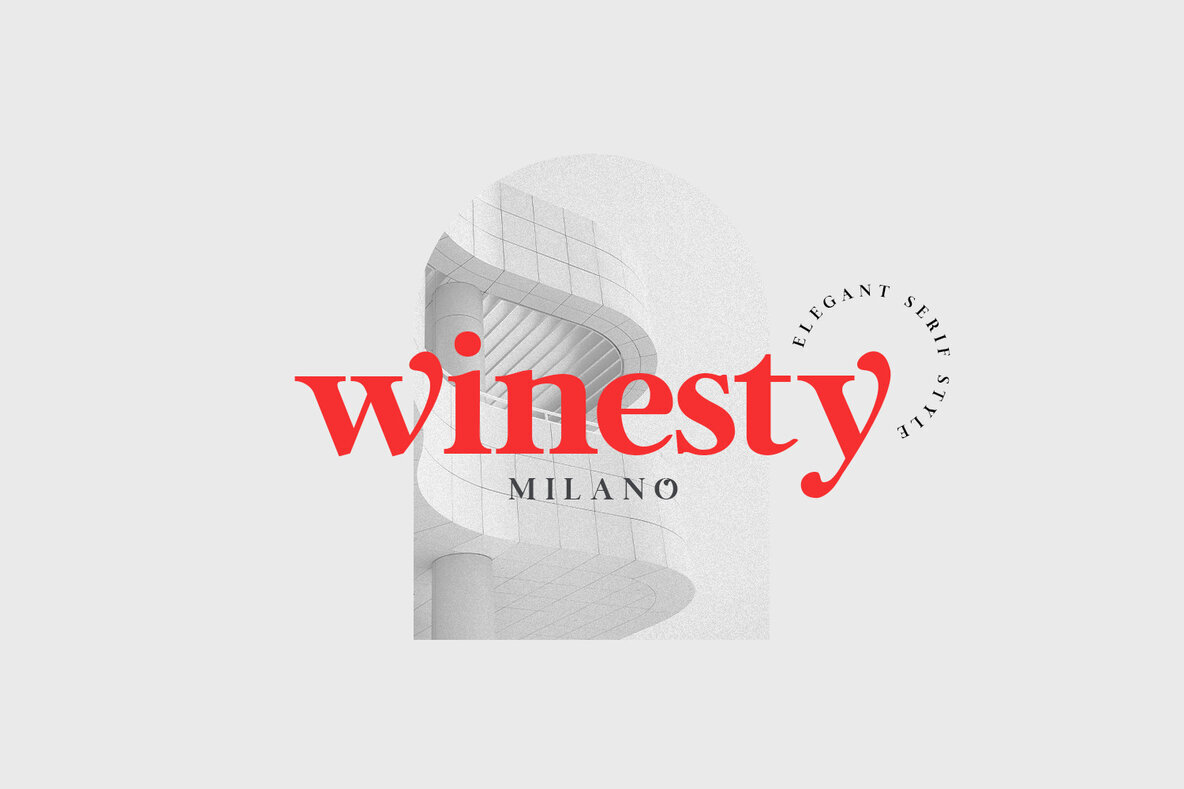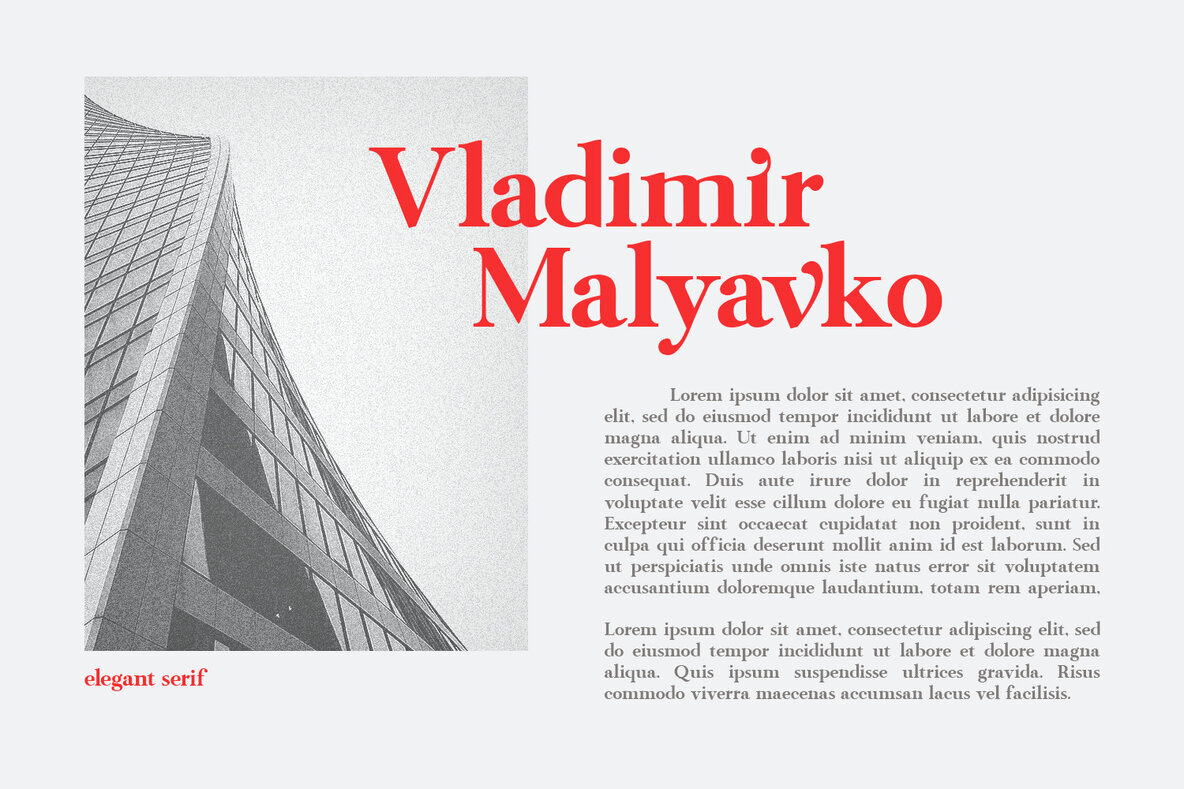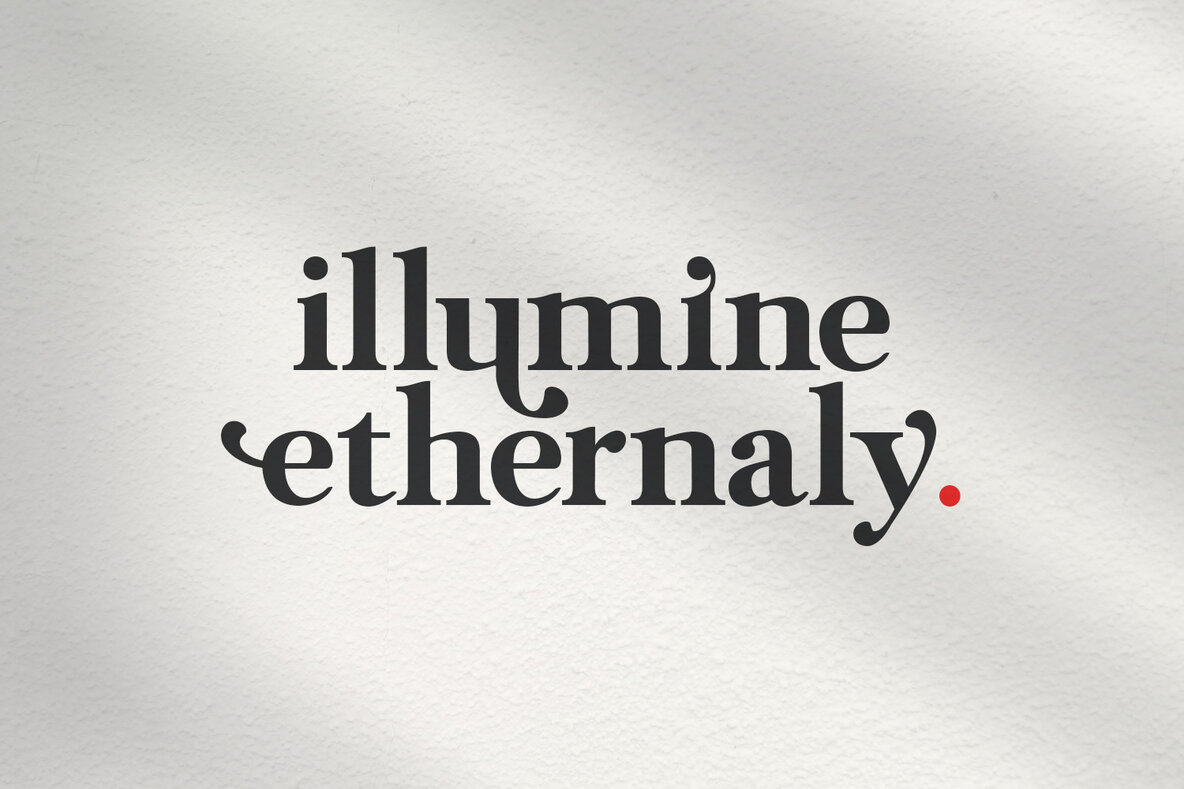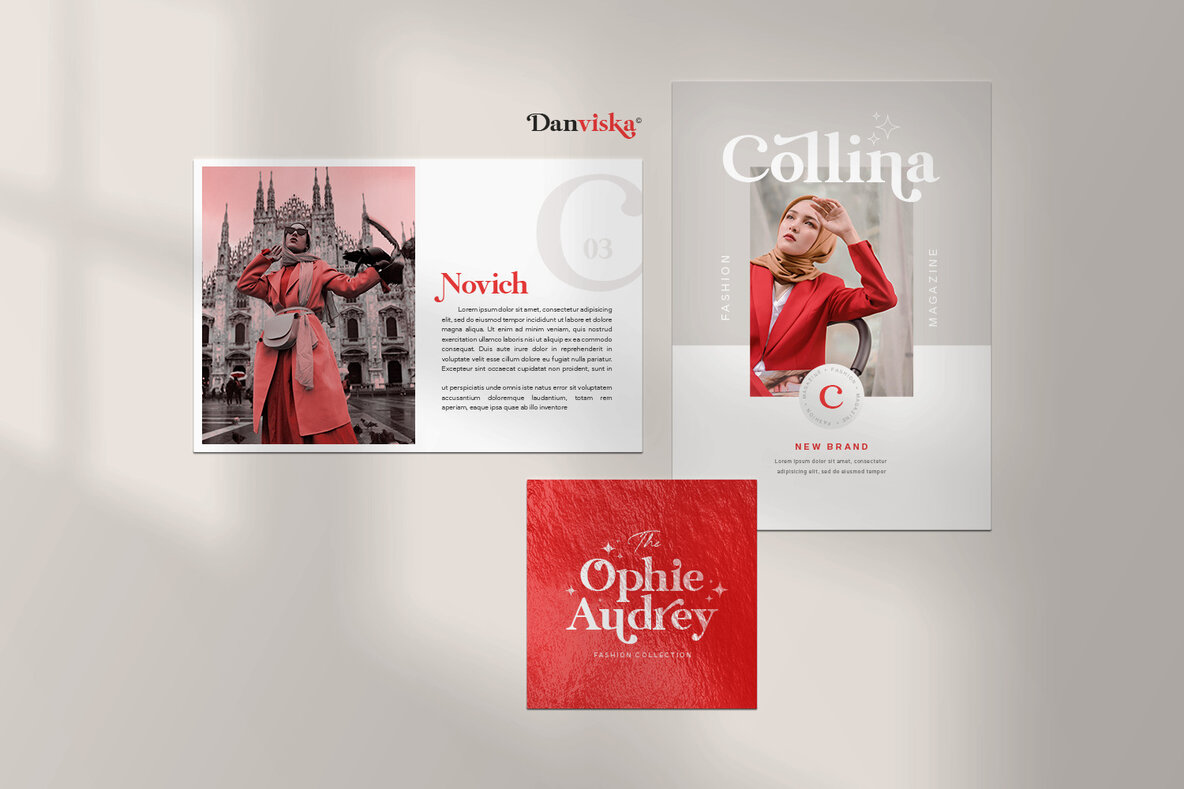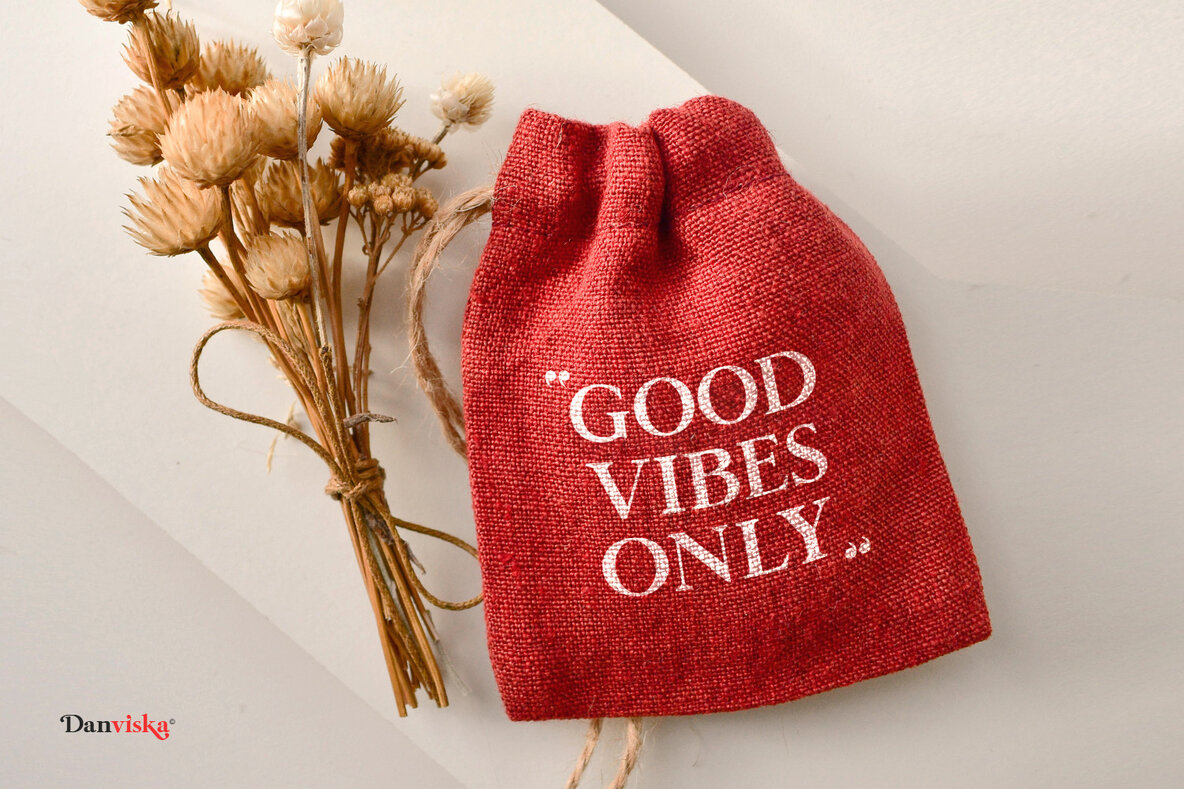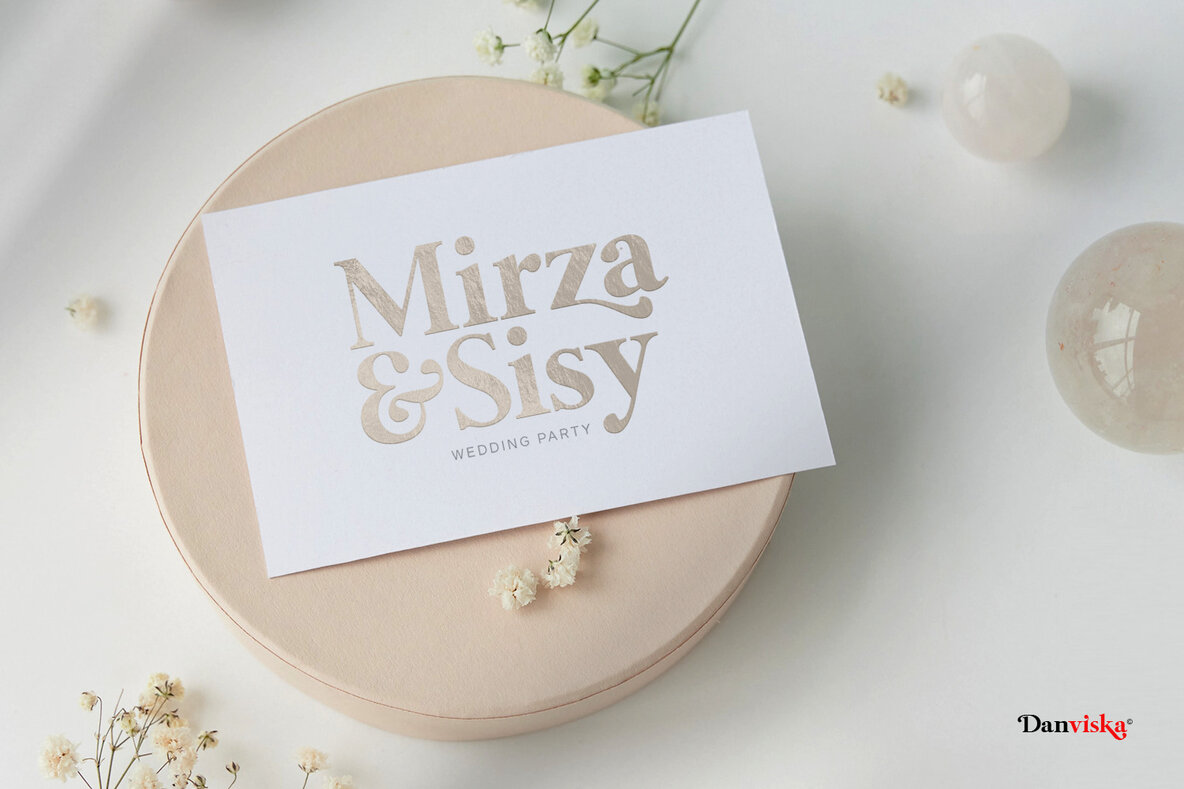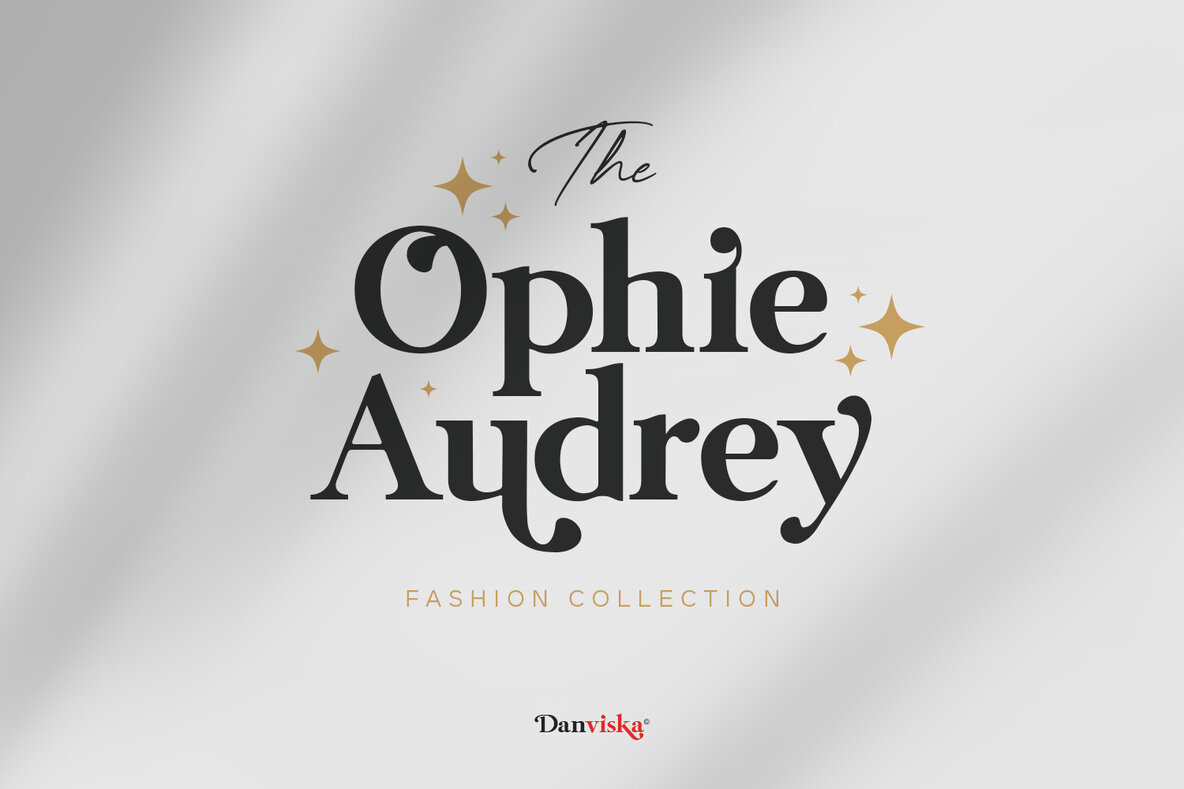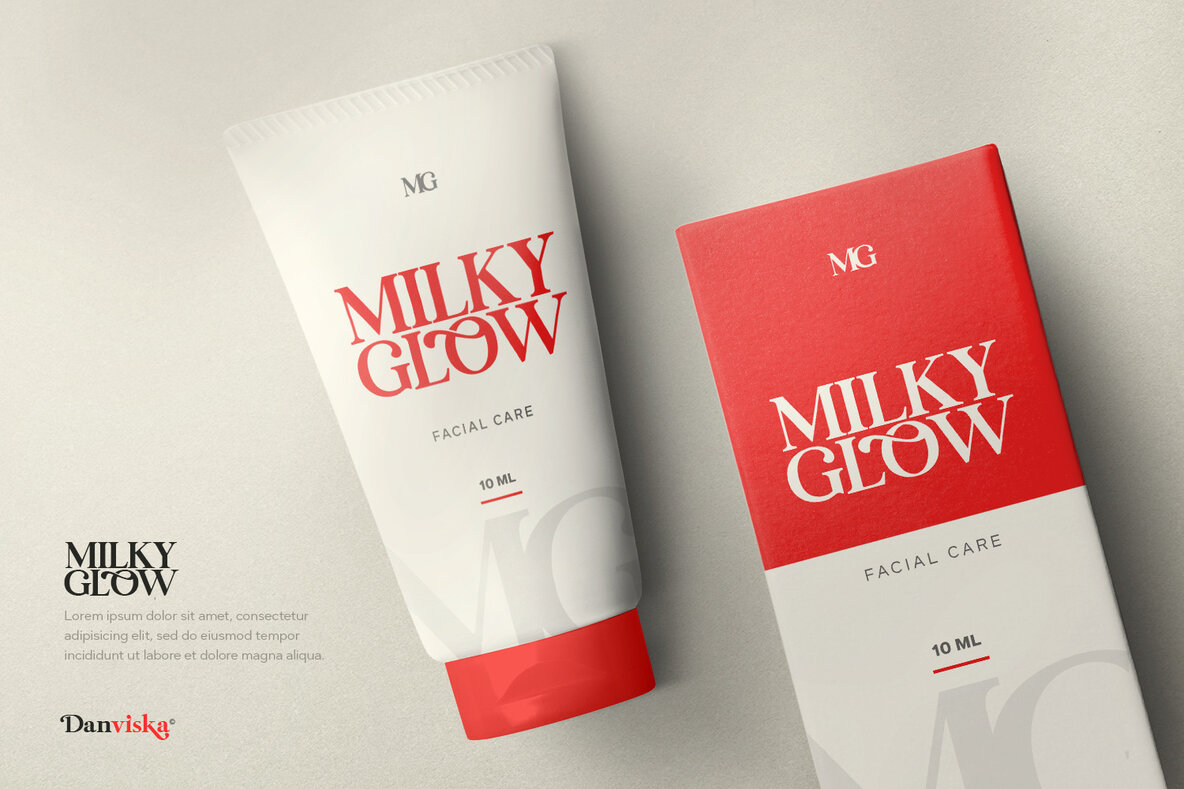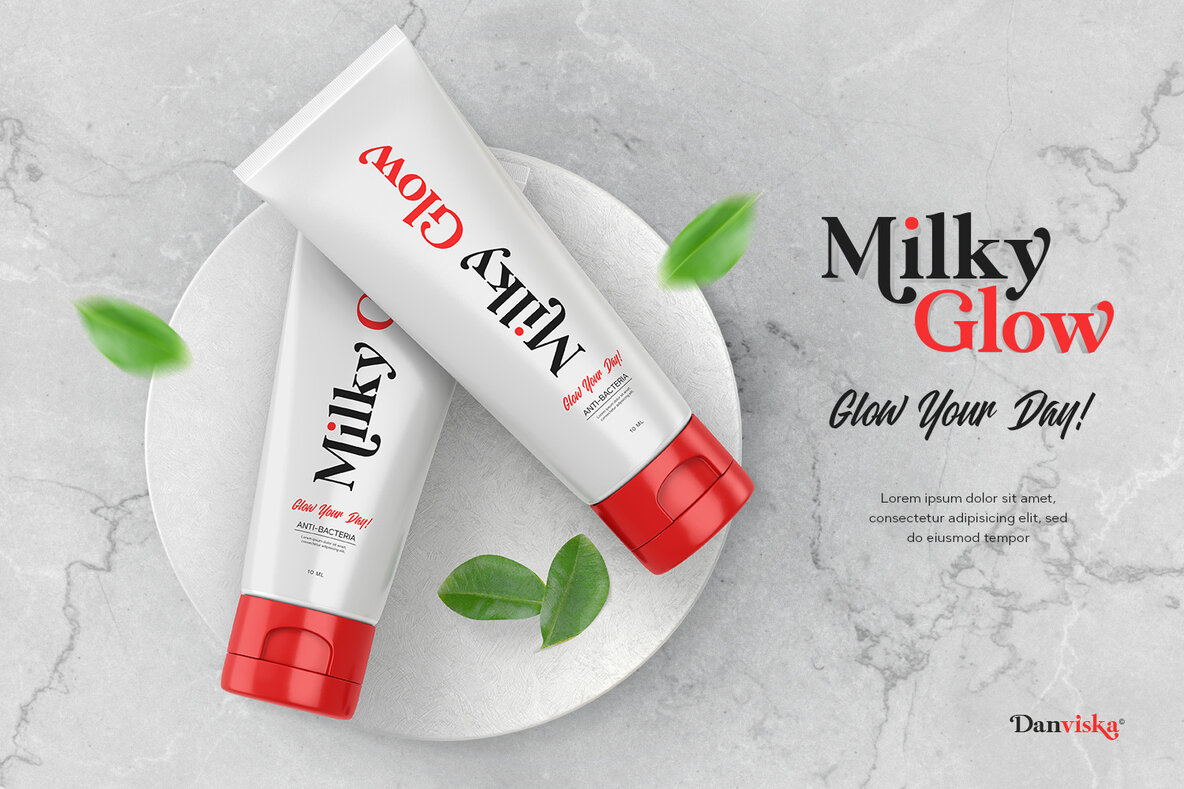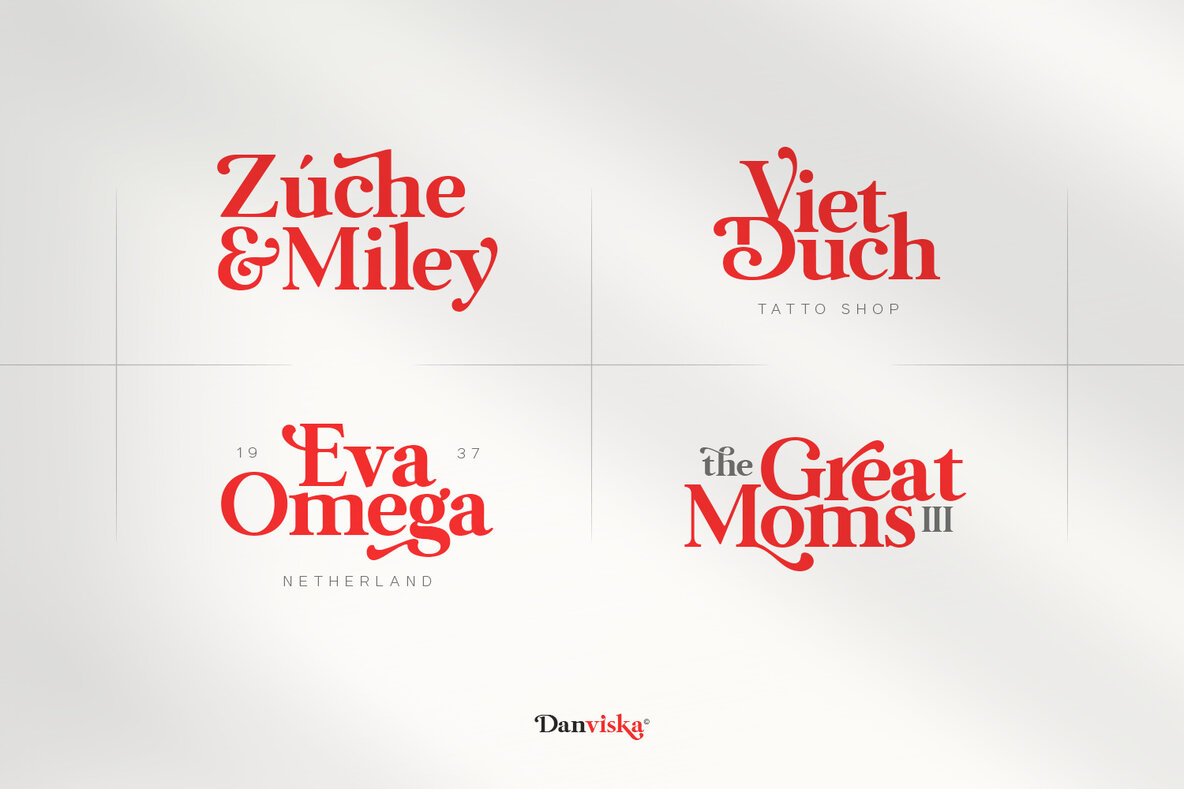
Danviska Font
Danviska
Introducing Danviska, a sophisticated serif font with bold, stylish characters. Its design, rich with thick letters, makes a striking impression. Suitably versatile for various projects, Danviska fits well into diverse applications such as branding, logo design, clothing labels, packaging, magazine headings, posters, advertising, and wedding invitations. This font enhances readability and provides a refined aesthetic to any project. Features:Danviska: Elegant Modern Serif Font